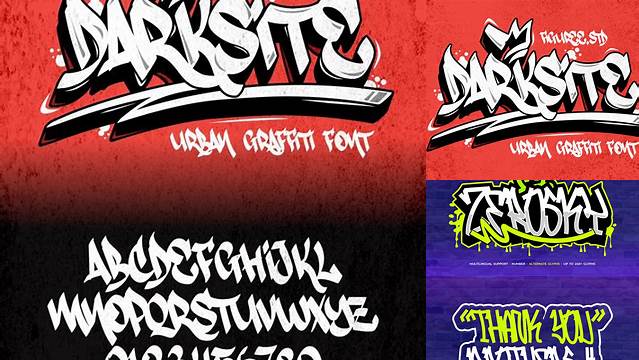
Free Darkside Urban Graffiti Font Download Guide
Hey guys! Are you on the hunt for a font that screams urban edge and street style? Look no further! The Darkside Urban Graffiti Font might just be the perfect addition to your design toolkit. In this article, we're diving deep into what makes this font so cool, where you can snag it for free, and how to best use it in your projects. So, buckle up and let's get started!
What is the Darkside Urban Graffiti Font?
So, what exactly is the Darkside Urban Graffiti Font? Well, imagine the raw energy of city streets, the vibrant colors of murals, and the rebellious spirit of graffiti art—all rolled into one typeface. That's pretty much what this font is all about. It’s designed to capture that authentic urban feel, making it ideal for a wide range of creative projects. Think of it as your go-to font when you need to add a touch of grit and authenticity.
Key Characteristics
- Bold and Impactful: The Darkside font is designed to make a statement. Its thick strokes and edgy design command attention, ensuring your message doesn’t go unnoticed.
- Urban Aesthetic: Inspired by street art, this font embodies the raw and unfiltered energy of urban environments. It’s perfect for projects that need a touch of authenticity and street cred.
- Versatile Use: While it’s undeniably urban, this font is surprisingly versatile. It can be used in various contexts, from posters and flyers to digital designs and branding materials.
- Unique Letterforms: Each character in the Darkside font is crafted with a unique flair, mimicking the hand-styled imperfections of real graffiti. This gives your text a distinctive and artistic edge.
Why Choose This Font?
Choosing the right font can make or break your design. The Darkside Urban Graffiti Font is an excellent choice for several reasons. First off, it immediately adds a layer of authenticity and edginess to your work. If you're aiming for a streetwise vibe, this font is a no-brainer. Secondly, its bold and impactful design ensures that your message stands out. In a world where attention is a scarce resource, a font that grabs eyeballs is worth its weight in gold. Finally, the fact that it’s often available for free makes it an incredibly accessible option for designers on a budget. Whether you’re working on a poster for a local event or branding materials for a new streetwear brand, the Darkside font can help you achieve the desired look without breaking the bank. It’s about bringing that raw, unfiltered energy of the streets into your creative projects, giving them a unique and memorable edge.